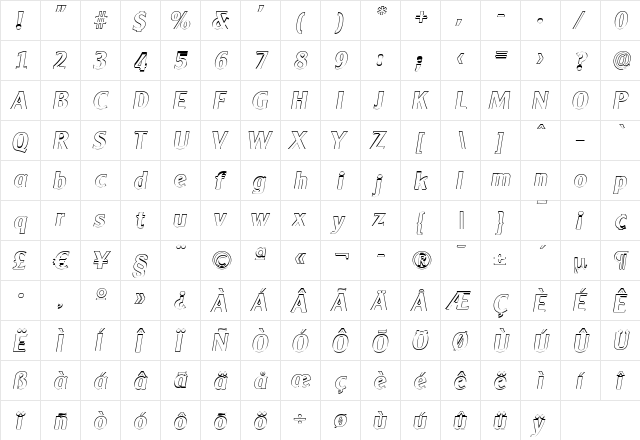
AlexanderBeckerOutline Bold Italic Font Preview
Design Context for AlexanderBeckerOutline Typeface
AlexanderBeckerOutline is built around its visual character rather than neutral utility — its distinctive forms are designed to make an impression at display sizes. Its italic angle brings a sense of urgency and motion to the letterforms. Its bold stroke weight gives it real presence on the page.
Font Pairing: Pair with a clean neutral sans-serif for body copy to let AlexanderBeckerOutline's character lead without overwhelming the composition.
Pro Tip: Use AlexanderBeckerOutline exclusively at display sizes — it was designed to be seen, not read at length. Let a neutral companion handle body copy.